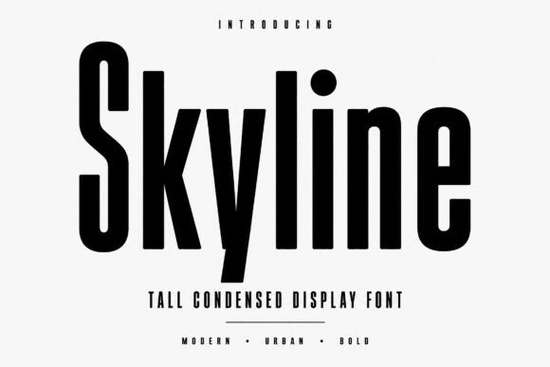
If you're looking for a bold, modern display font that stands out in any project, Skyline Font is a strong choice. It’s designed with tall, narrow proportions and clean geometric lines, giving it a sleek, urban feel perfect for headlines, logos, and branding. Whether you're working on fashion designs, posters, packaging, or social media content, Skyline adds instant visual impact without sacrificing readability.
What makes Skyline Font stand out?
Skyline isn’t just another condensed typeface it’s built for impact. Its vertical structure draws the eye upward, making it ideal for titles, banners, and layouts where space is limited but attention is key. The font’s clean design works well across digital and print formats, from Instagram posts to product labels.
Best uses for Skyline Font in real projects
- Logo design: Create sharp, memorable brand identities with a modern edge.
- Fashion & streetwear branding: Match its urban vibe with edgy apparel or accessory labels.
- Posters & flyers: Grab attention at events, concerts, or pop-up shops.
- Magazine covers & editorial layouts: Add a high-contrast, stylish touch to headlines.
- Packaging & merch: Use it on t-shirts, tote bags, or boxes for a premium look.
- Social media graphics: Stand out in feeds with bold, vertical text that stops scrolls.
It’s also great for advertising campaigns and mockups where clarity and style go hand-in-hand. Because it’s a display font, it shines when used sparingly pair it with simple backgrounds or minimal layouts to keep focus on the message.
Why designers choose Skyline for their work
Designers appreciate how consistently Skyline performs across different projects. It scales well, maintains legibility at large sizes, and looks polished whether rendered digitally or printed. Its compact width saves space on layouts while still commanding attention.
For small businesses and print-on-demand sellers, this font helps create products that feel intentional and high-quality. A logo on a hoodie or a poster for an event can instantly feel more professional with Skyline’s presence.
Looking for inspiration? Try pairing Skyline with minimalist sans-serifs for balance, or use it alone for maximum effect. Test it in different colors and backgrounds to see how it adapts its versatility is one of its strengths.
With its strong, modern look and reliable performance, Skyline Font is a dependable tool for anyone building bold visuals. Give it a try you might find it becomes your go-to for standout designs.